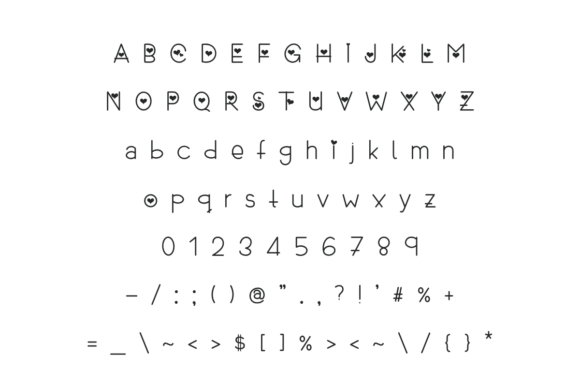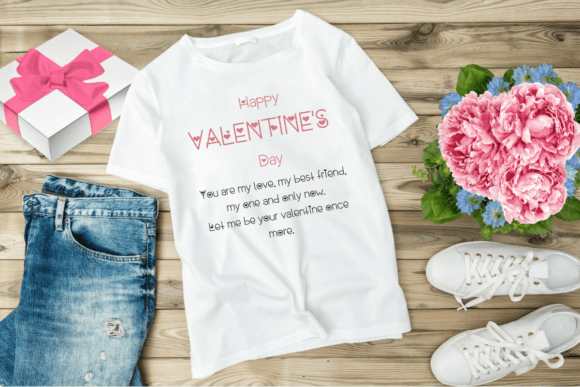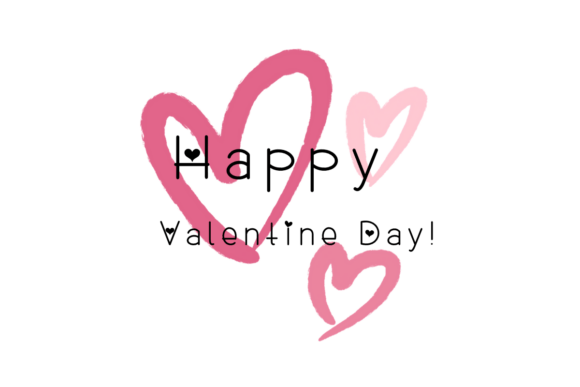
Introduction to Kisses Love Font
Kisses Love is a decorative font.
You can use it for taking notes, writing a diary, or making greeting cards However, you can still use it for other designs, such as banners, content, mugs, cards, shirts, stationery, social media posts, and more.